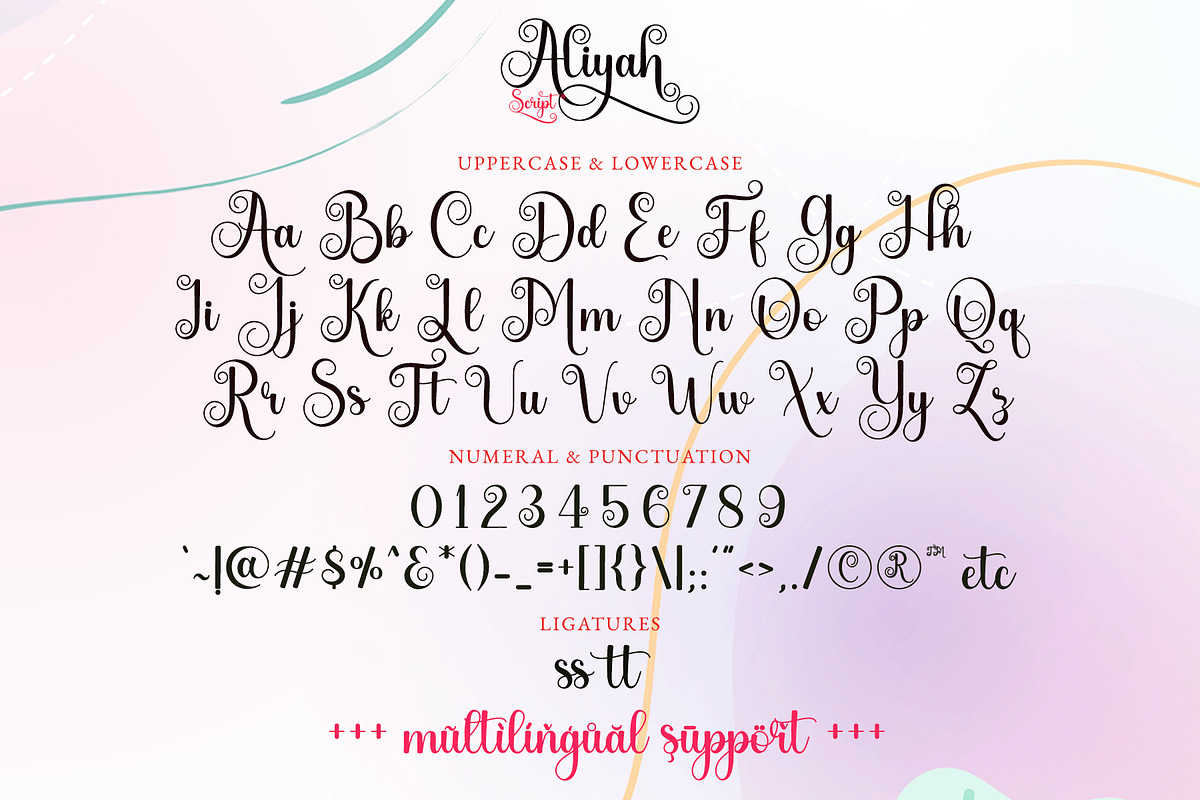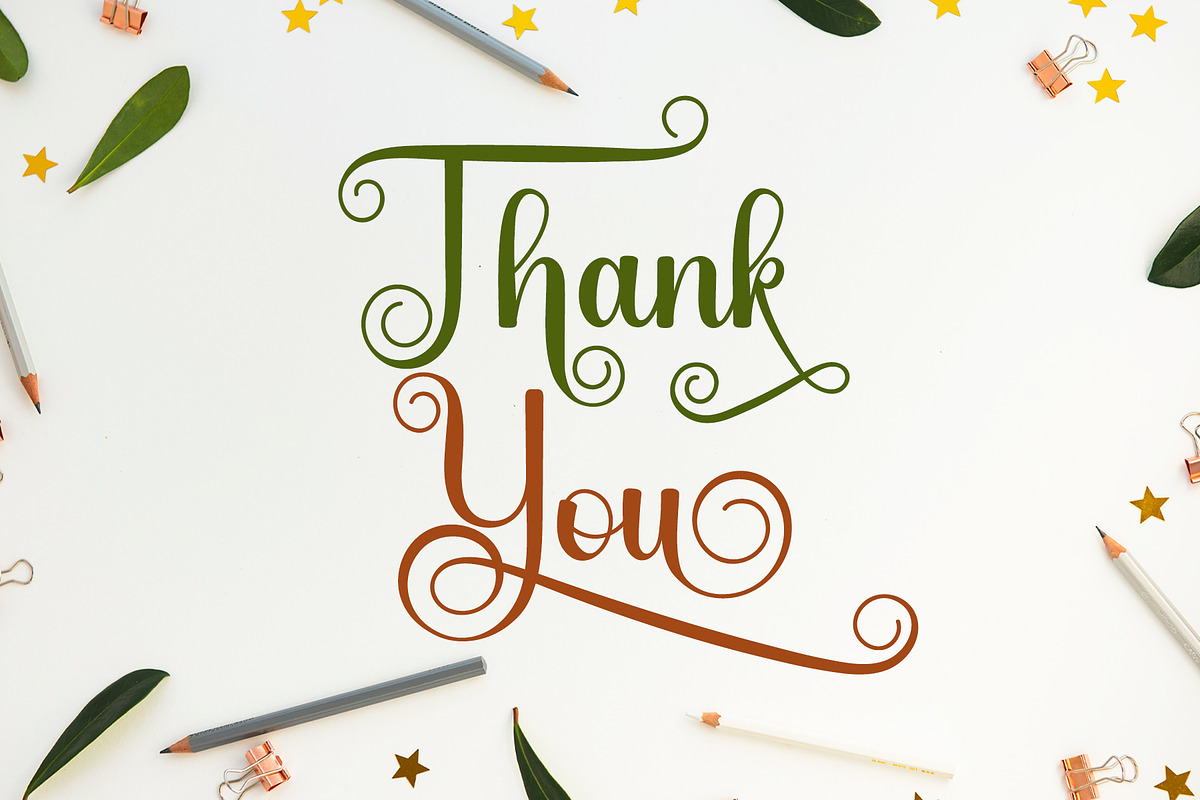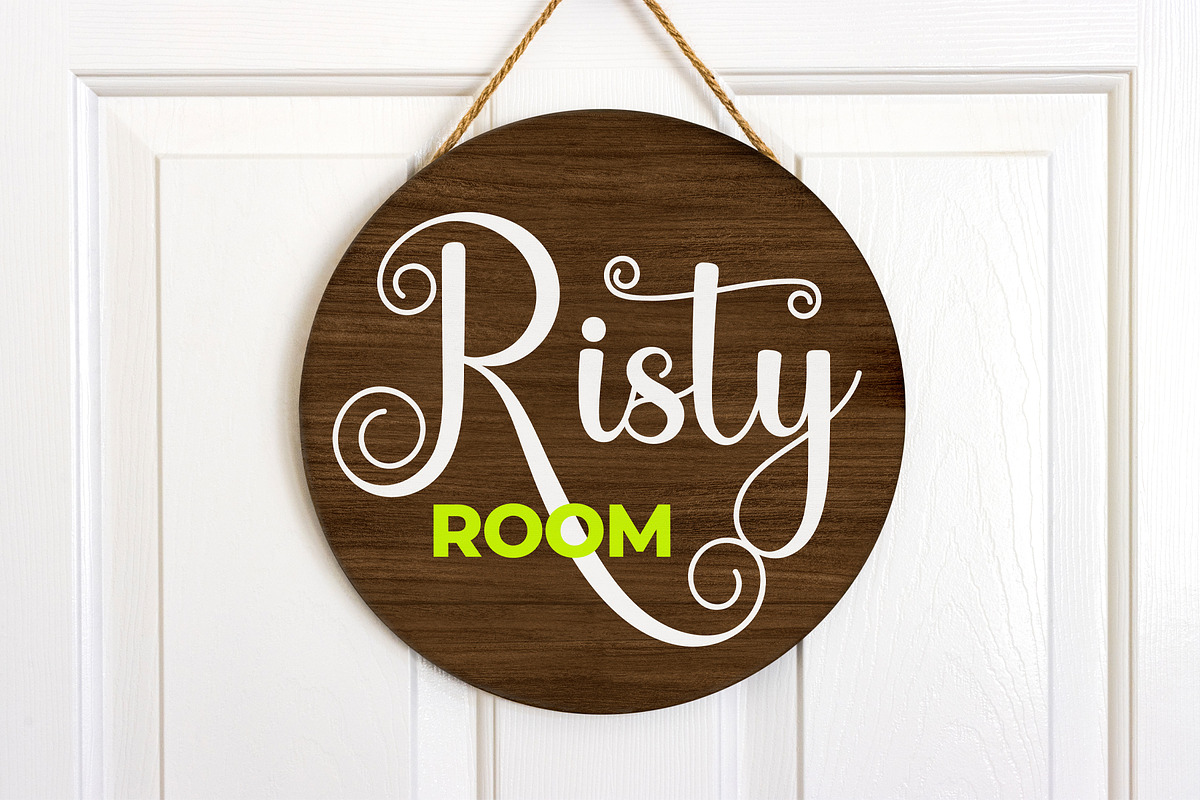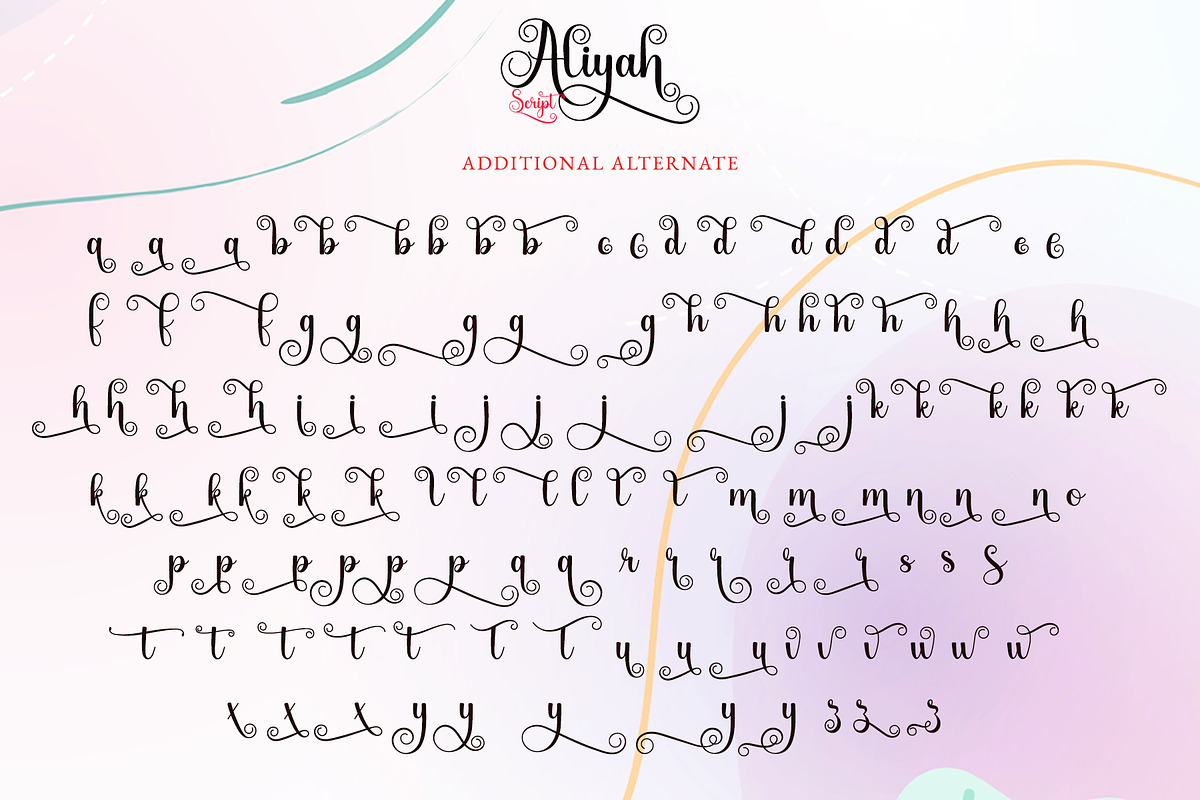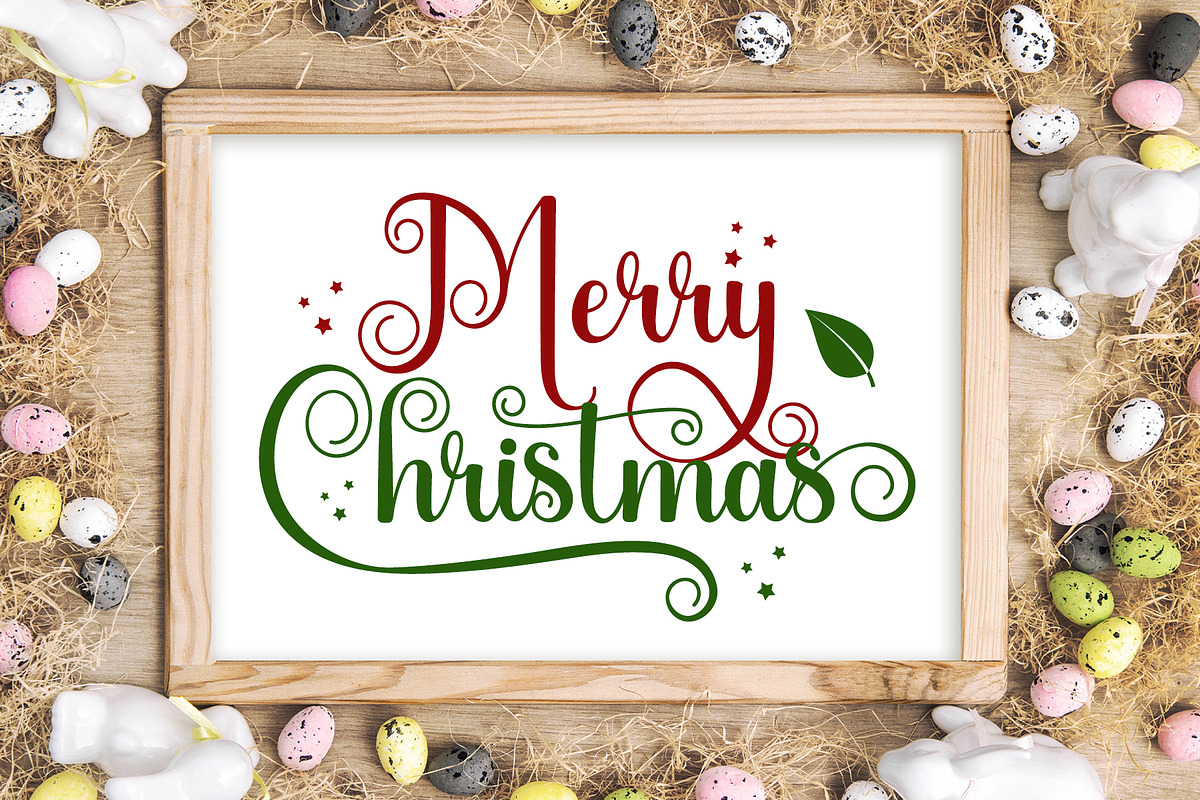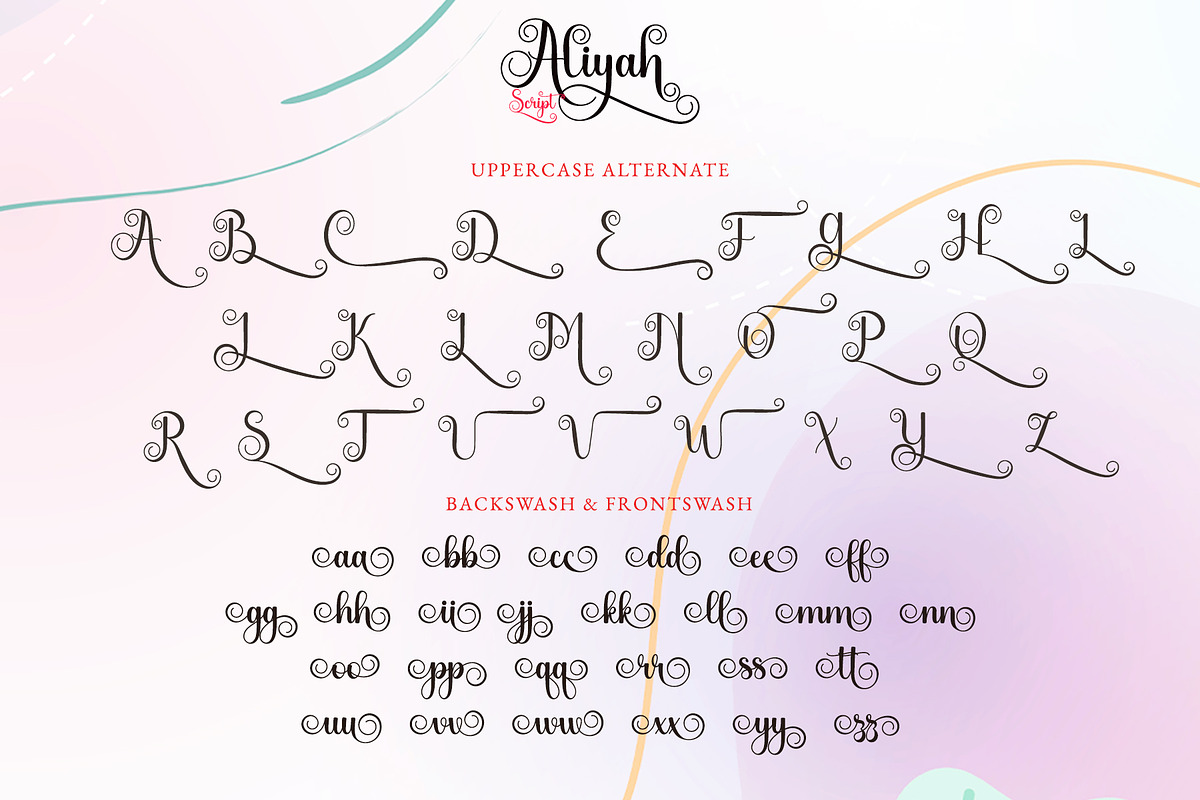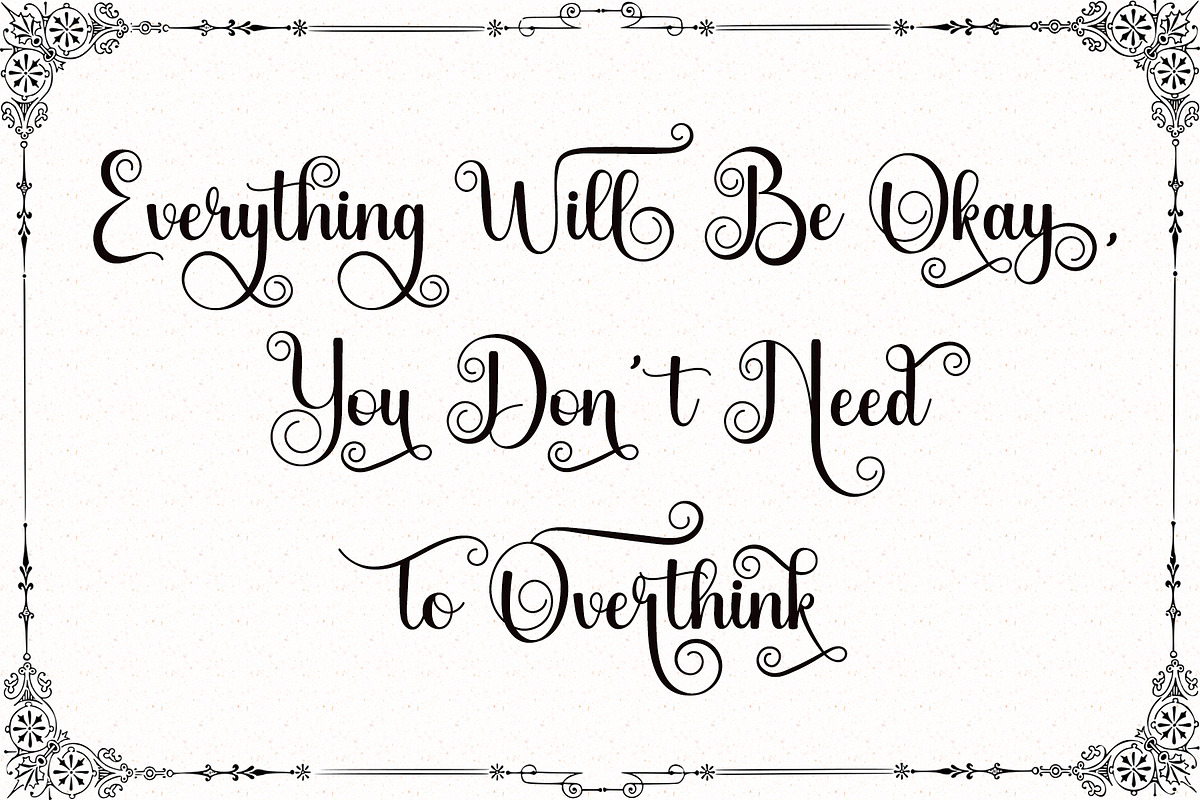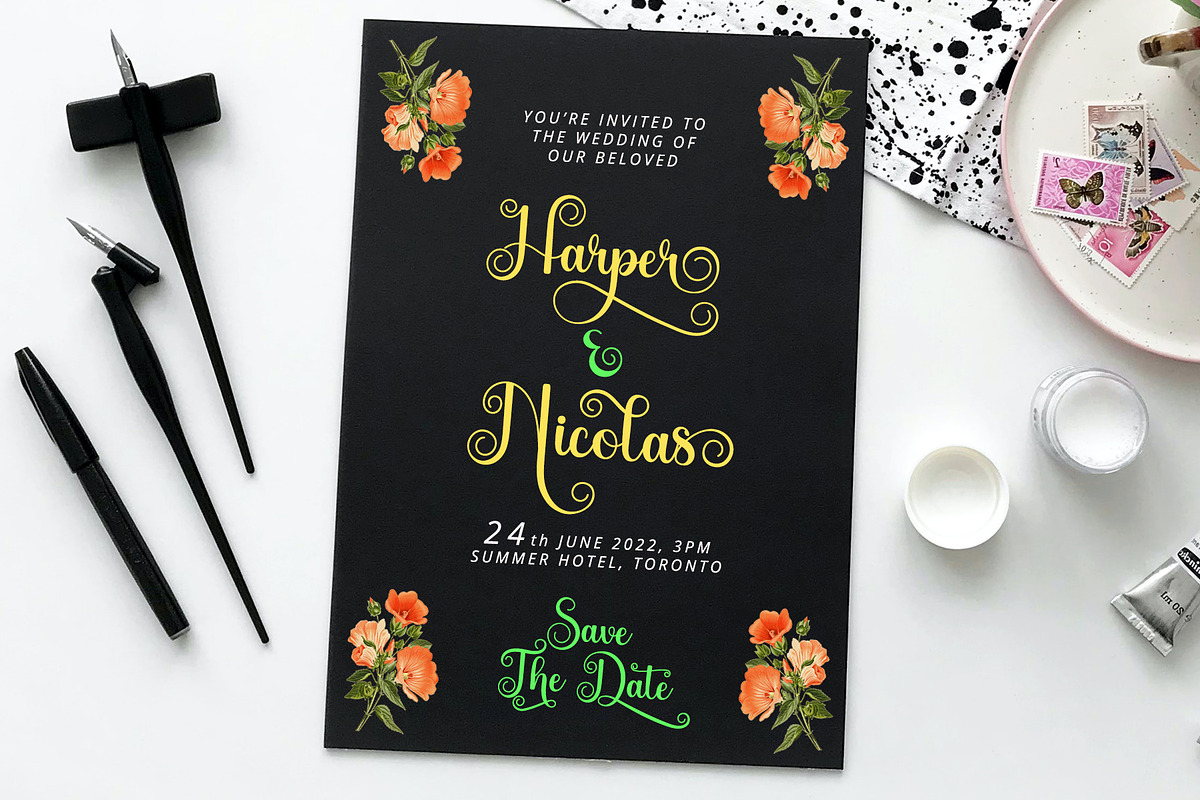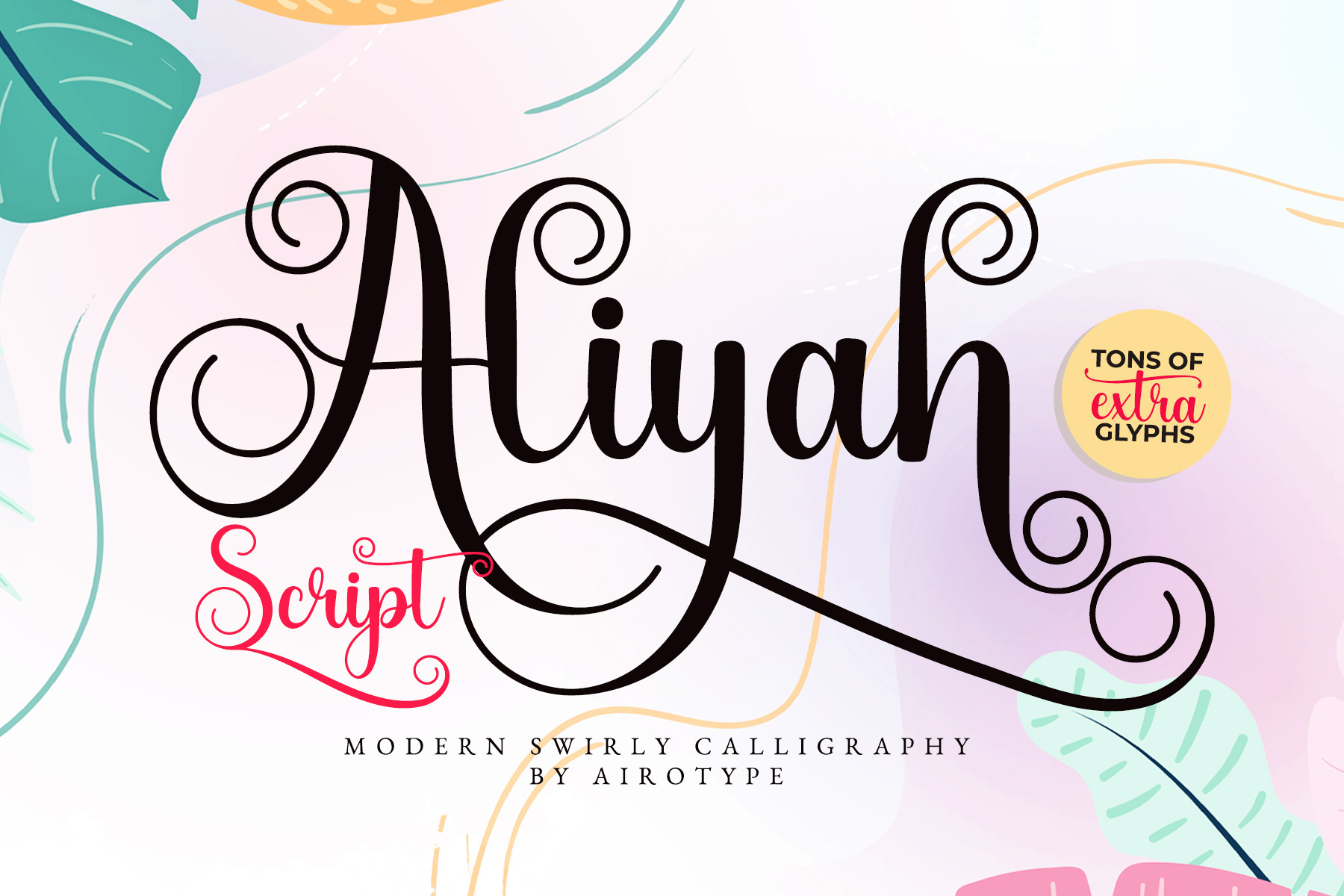
Aliyah - Swirly Calligraphy Font
Aliyah Script is modern and elegant swirly script. It has tons of extra glyphs with swirl accent, to add elegance and beauty of the design.
Aliyah Script is perfect font for any projects, such as wedding invitation, christmas design, branding, logo, lettering, crafting, sticker, sublimation, and many more.
- Most Multilingual Accent
- PUA-Encoded swash/tail accent and love connection extra glyphs